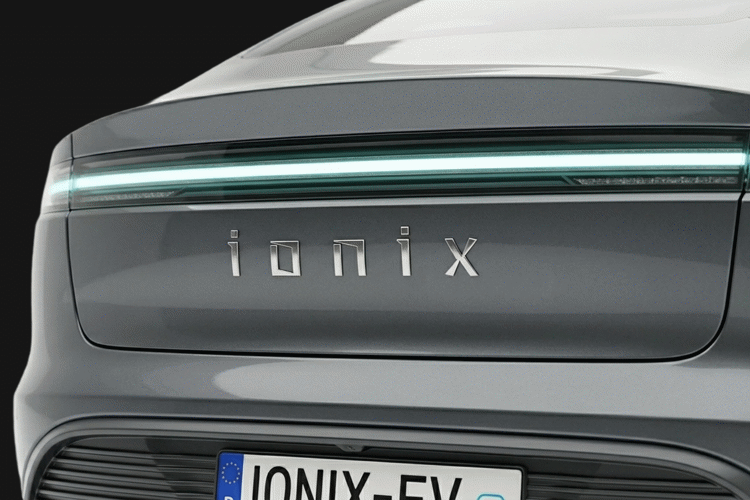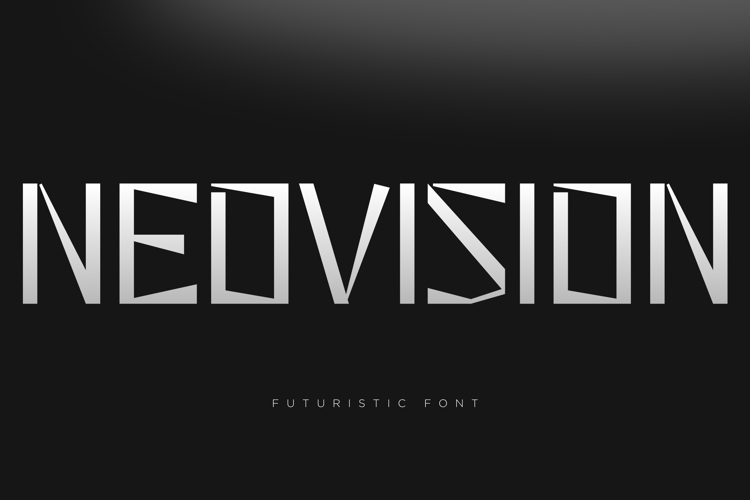
Inject a sharp, futuristic energy into your creative projects with FT Neovision.
FT Neovision is a sharp-edged display font that brings a high-tech, cyberpunk vibe directly to your design toolkit. Featuring unique geometric letterforms and aggressive industrial cuts, it is perfectly suited for headlines, logos, and any design that requires a powerful modern edge.